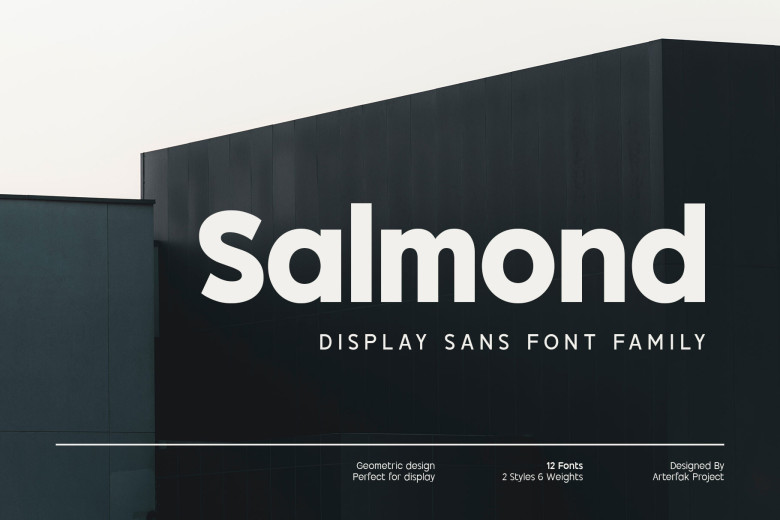
Salmond Font
Salmond is a modern geometric sans serif font designed with a small letterspace to create a classic and elegant aesthetic. Available in six weights – Regular, Light News, medium, Semibold and Bold – Salmond supports Oblique styles as well as multilingual support and can be used for titles, branding books, logos, UX/UI solutions or editorial purposes.
The font family offers plenty of design possibilities, especially titles or branding books as titles or branding books with impressive editorial work or striking editorial work.
Salmond Sans Serif Font